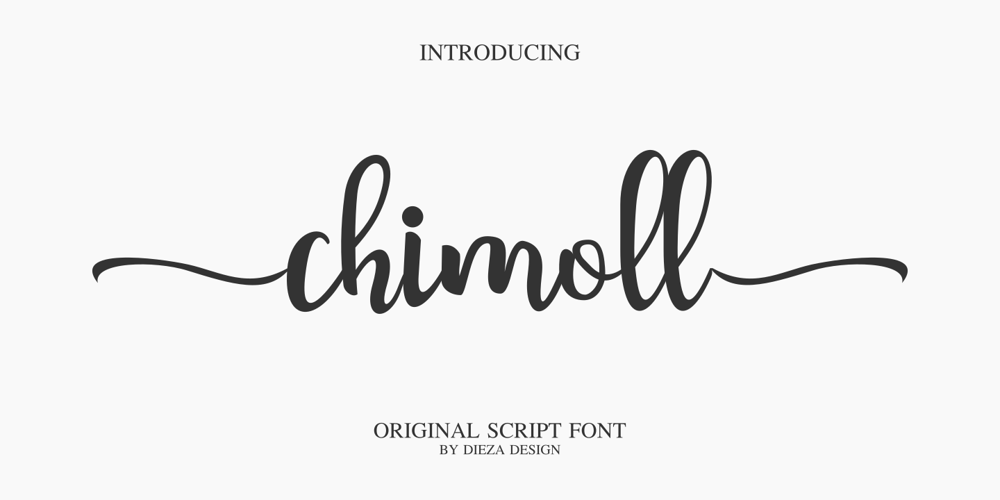
Chimoll Font Family was designed by Rohmat Sidiq Mustaqim and published by Dieza Design. Chimoll contains 1 styles and family package options. Inspired by a typical Indonesian food, our Chimoll Script is made. Chimoll Script is a magical handwritten font that is carefully crafted with an elegant touch. Whether you’re looking for fonts for Instagram or calligraphy scripts for DIY projects, this font will turn any creative idea into a true work of art!